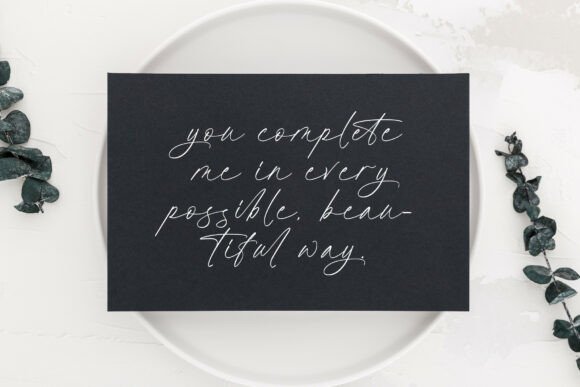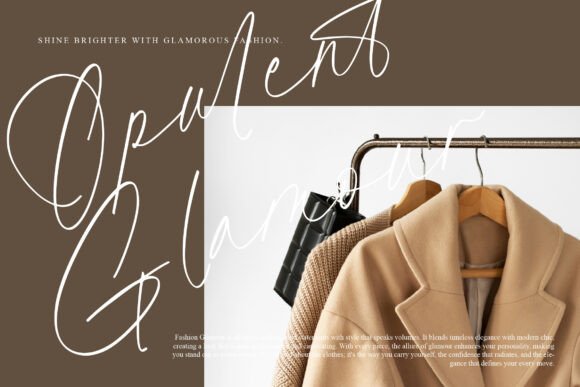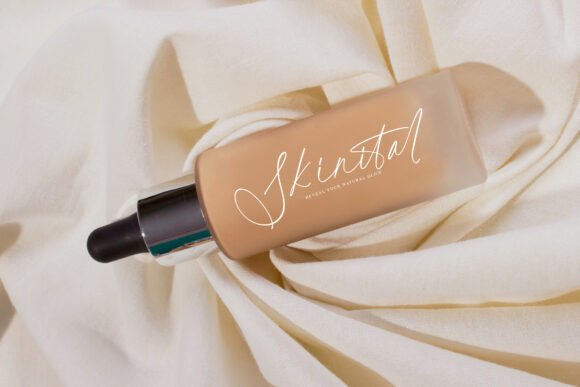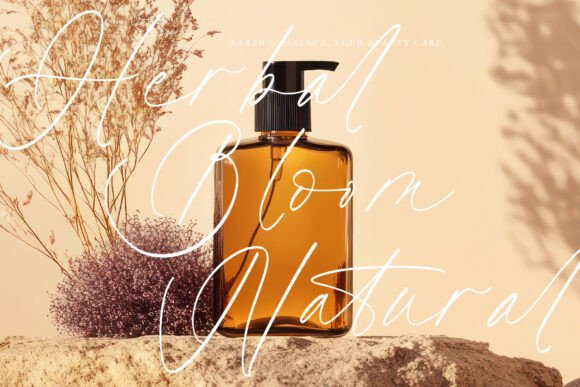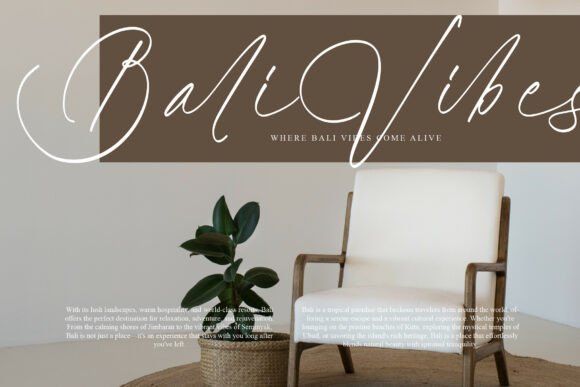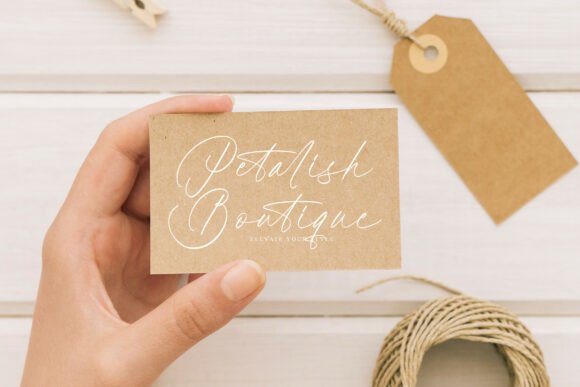
Timeless Elegance Meets Modern Flair: Introducing Balltesa Royales Font
As designers, we’ve all been there – staring at a blank page, trying to find the perfect font to bring our vision to life. And then, like a breath of fresh air, it hits us: the perfect combination of classic and modern that sets our design apart. For me, that moment came when I discovered the Balltesa Royales Font.
This elegant script font seamlessly blends traditional calligraphy with a modern twist, making it the ideal choice for upscale packaging, personal branding, and editorial design. With both regular and italic styles, the Balltesa Royales Font is a versatile tool that can elevate any design project. Whether you’re a seasoned pro or just starting out, this font is a valuable addition to your toolkit.
Key Features of Balltesa Royales Font
- Unique Characteristics: Elegant and luxurious script font, ideal for creating sophisticated and high-end designs.
- Font Style: Script, perfect for adding a touch of elegance and sophistication to headings, titles, and other text elements.
Balltesa Royales Font Review
Overall, I think the Balltesa Royales font has some great qualities, but also a few limitations. Let’s start with the good stuff: ✨ The font has a unique, elegant feel to it, with a touch of luxury and sophistication. The letterforms are well-designed and visually appealing, making it a great choice for high-end branding or design projects.
One of the standout features of Balltesa Royales is its versatility. ✨ It comes in a range of weights and styles, from light to bold, which makes it easy to use in a variety of contexts. Whether you’re looking to create a bold, eye-catching headline or a more subtle, elegant body text, Balltesa Royales has got you covered.
What Doesn’t Work So Well:
- ⚠️ The font can be a bit difficult to read at smaller sizes, which may be a limitation for certain design projects. This is particularly true for body text or other long-form content.
- ⚠️ The font’s elegance can also be a double-edged sword. While it’s perfect for high-end branding, it may not be the best choice for more casual or playful projects.
Overall, I think the Balltesa Royales font is a solid choice for designers looking to add a touch of luxury and sophistication to their projects. While it may have some limitations, its unique feel and versatility make it a great option for a wide range of design contexts.
The Balltesa Royales Font is ideal for creating elegant and luxurious designs, making it perfect for:
- High-end branding and marketing materials.
- Formal events and galas.
Remember to use the font in conjunction with high-quality images and graphics to create a cohesive and sophisticated design.
Alternatives to Balltesa Royales Font
Great Vibes is a beautiful, elegant script font ideal for creating a sophisticated and luxurious feel. It’s perfect for branding, packaging, and advertising materials. This font is more elegant and refined compared to Balltesa Royales, making it suitable for high-end products and services.
Carolyna Pro is a modern, elegant script font that exudes sophistication and luxury. It’s perfect for creating a high-end feel in branding, packaging, and advertising materials. Compared to Balltesa Royales, Carolyna Pro has a more refined and polished look, making it suitable for premium products and services.
Dancing Script is a beautiful, elegant script font that’s perfect for creating a luxurious and sophisticated feel. It’s ideal for branding, packaging, and advertising materials. Compared to Balltesa Royales, Dancing Script has a more playful and dynamic feel, making it suitable for creative and artistic projects.